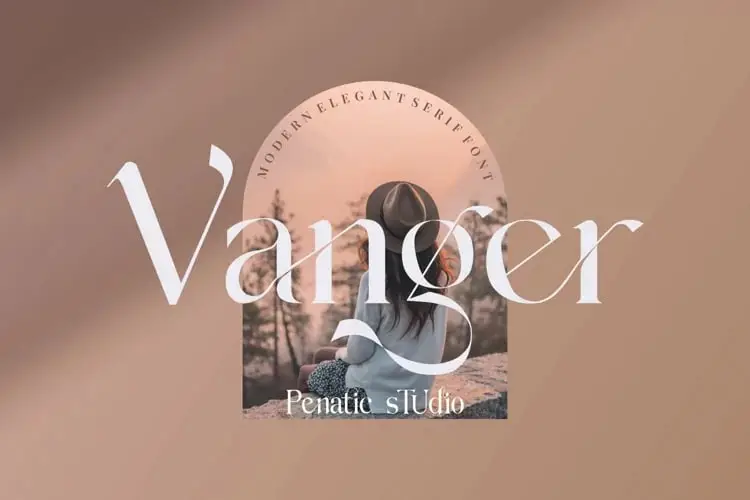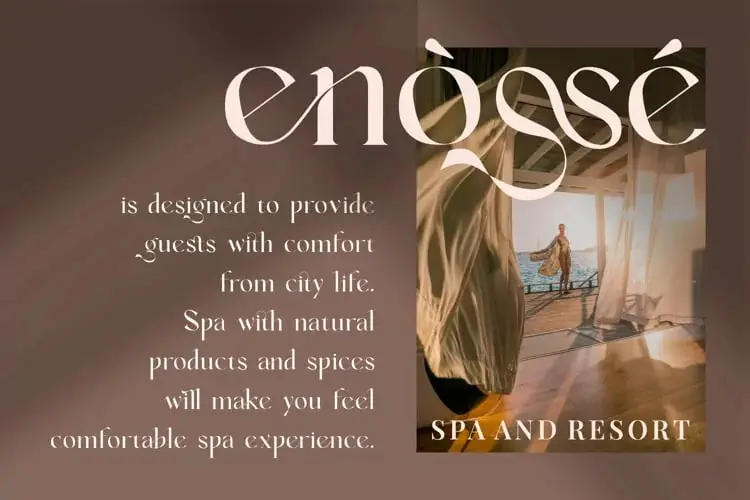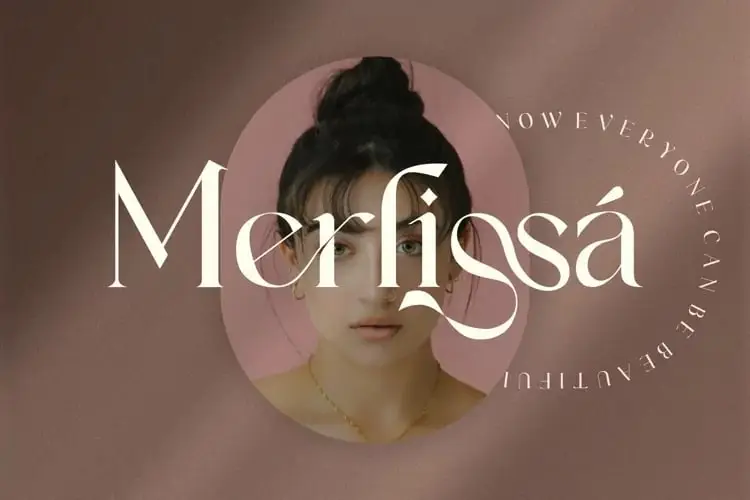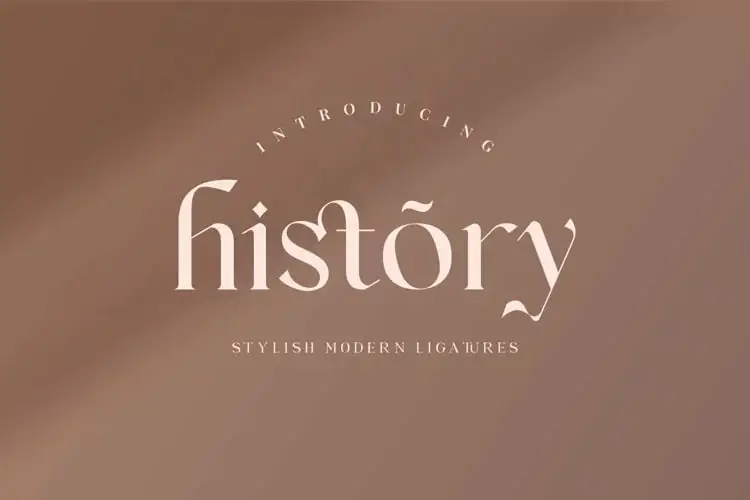
Penatic Studio-Vanger Modern Serif Font
Introducing the Penatic Studio-Vanger Modern Serif Font, a beautifully crafted typeface that combines elegance with contemporary design. This font is perfect for a variety of applications, including branding, logos, web design, print materials, and user interfaces.
• Modern serif design for a sophisticated look
• Multiple weights for versatile usage
• Uppercase and lowercase letters, numerals, and punctuation